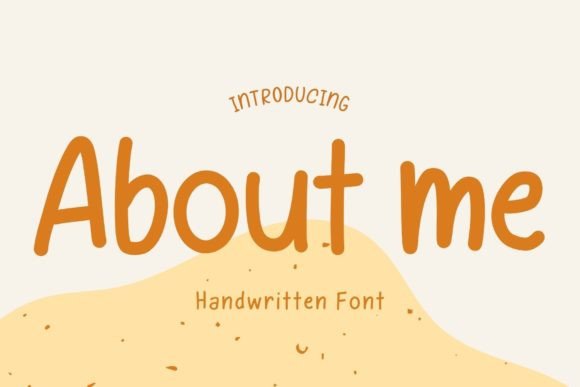
Discover the Charm of About Me Font: A Cute Notebook Handwritten Font
Are you a designer, crafter, or DIY enthusiast looking for a font that embodies playfulness and authenticity? Look no further than About Me Font, a delightful handwritten font that is perfect for adding a personal touch to your projects. In this article, we’ll explore the features and benefits of About Me Font, and show you how to make the most of this versatile and charming font.
What is About Me Font?
About Me Font is a cute notebook handwritten font that is designed to bring a sense of playfulness and authenticity to your designs. With its whimsical and informal feel, this font is perfect for a wide range of projects, from blog posts and logos to branding, ads, invitations, greeting cards, planners, photo albums, decorations, and more.
Key Features of About Me Font
- Handwritten style: About Me Font has a beautiful, handwritten style that gives your designs a personal and unique touch.
- Playful and authentic: This font embodies playfulness and authenticity, making it perfect for designers and crafters who want to add a touch of personality to their work.
- Versatile: About Me Font is suitable for a wide range of projects, from digital designs to print materials.
Benefits of Using About Me Font
So why choose About Me Font for your next project? Here are just a few benefits of using this charming font:
- Add a personal touch: With About Me Font, you can add a personal touch to your designs that will make them stand out from the crowd.
- Create a unique brand identity: This font is perfect for designers and crafters who want to create a unique brand identity that reflects their personality and style.
- Perfect for DIY projects: About Me Font is ideal for DIY enthusiasts who want to add a professional touch to their handmade projects.
- Great for bloggers and social media influencers: This font is perfect for bloggers and social media influencers who want to add a personal touch to their content.
Need some inspiration for your next project? Here are a few ideas to get you started:
- Create a handmade planner: Use About Me Font to add a personal touch to your handmade planner.
- Design a custom logo: This font is perfect for creating a custom logo that reflects your brand identity.
- Make a photo album: Use About Me Font to add captions and titles to your photo album.
- Create a greeting card: This font is ideal for creating handmade greeting cards for special occasions.
In conclusion, About Me Font is a charming handwritten font that is perfect for designers, crafters, and DIY enthusiasts who want to add a personal touch to their projects. With its playful and authentic feel, this font is versatile and easy to use, making it ideal for a wide range of projects. So why not give About Me Font a try and see the difference it can make in your designs?
Whether you’re a seasoned designer or a crafty DIY enthusiast, About Me Font is sure to become a favorite in your font collection. So go ahead, get creative, and enjoy the results!